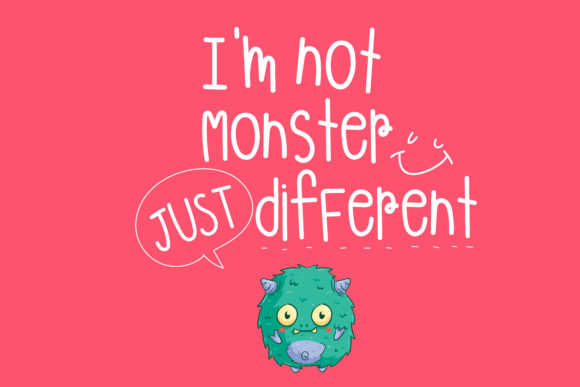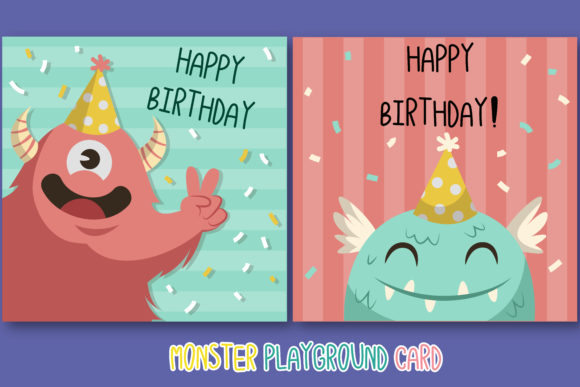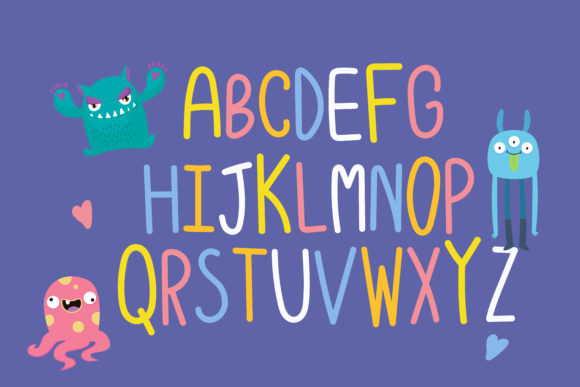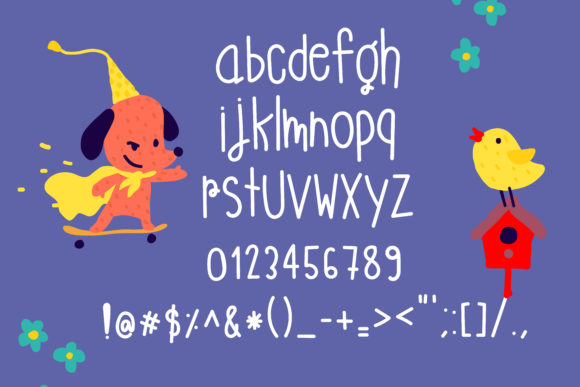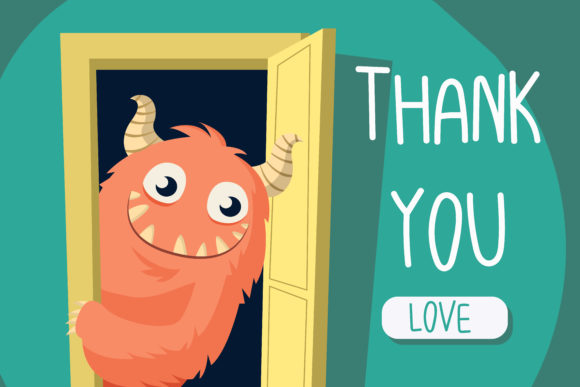
Monster Playground Font
About Monster Playground Font
Monster Playground embodies fun, quirkiness and authenticity. This enchanting handwritten font will turn any creative idea into a true standout.